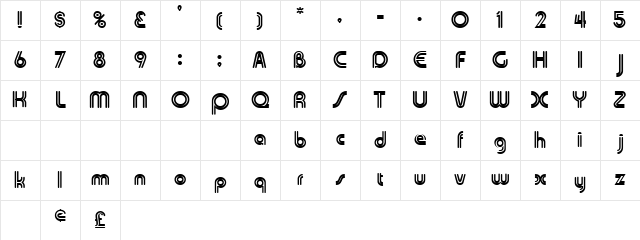
Repartee Normal
Repartee Family
Complete Repartee Normal glyph index. Displaying only characters natively supported by Repartee Normal font.
Design Context for Repartee
Repartee is a composed and adaptable typeface that performs quietly and consistently across a wide range of design contexts.